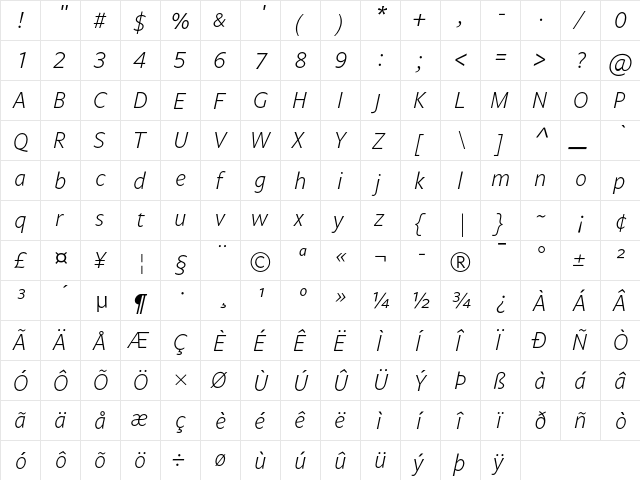
Legato LF Light Italic Font Preview
| Style | LF Light Italic |
Design Context for Legato Typeface
Legato offers clean, dependable letterforms without strong stylistic allegiance, making it a practical choice for designers who need flexibility. Its italic angle brings a sense of urgency and motion to the letterforms. The delicate stroke weight brings airiness and refinement to layouts.
Pro Tip: Try Legato for annotation and caption copy alongside an upright companion — the contrast in angle creates a dynamic but ordered typographic system.